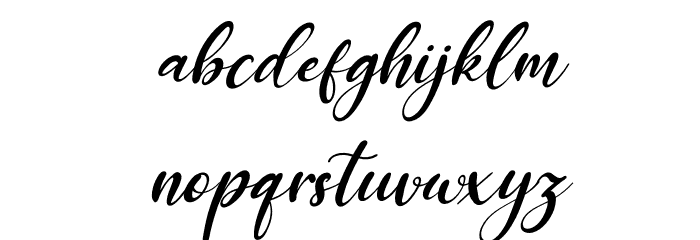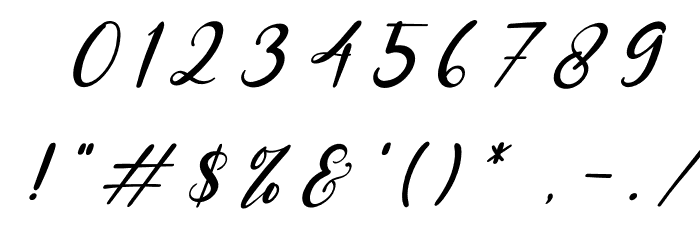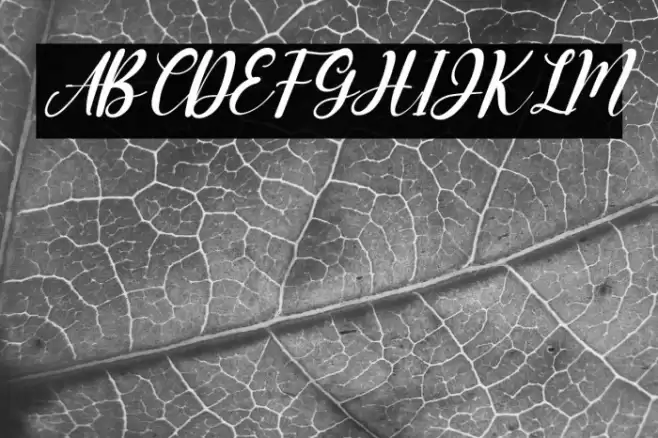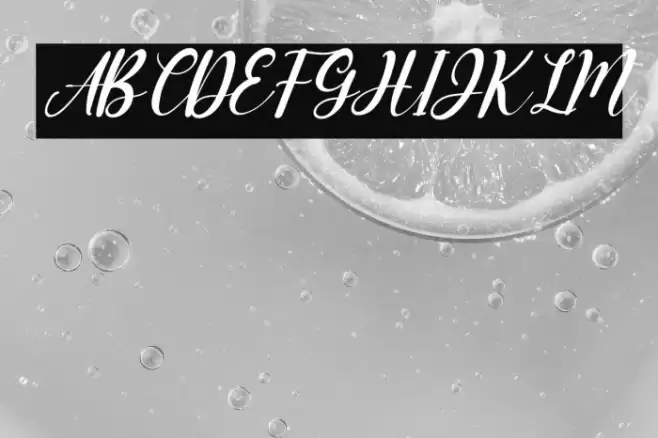
Miss Amalia Italic Font
This elegant script font features a flowing, cursive style with a sophisticated flair. The characters are connected in a fluid manner, creating a sense of movement and grace. The uppercase letters are particularly ornate, with sweeping curves and flourishes that add a touch of luxury. The lowercase letters maintain a consistent slant, enhancing the italic nature of the font. The numerals and special characters are designed to match the overall aesthetic, ensuring a cohesive look across all text. This font is perfect for projects that require a touch of elegance and sophistication.
A flowing, elegant script font with a sophisticated, italic style.
- Proposed Projects: Ideal for wedding invitations, luxury branding, elegant logos, and high-end product packaging.
- Overall Style: Elegant, Sophisticated
- Use Case: Logos, Invitations, Branding